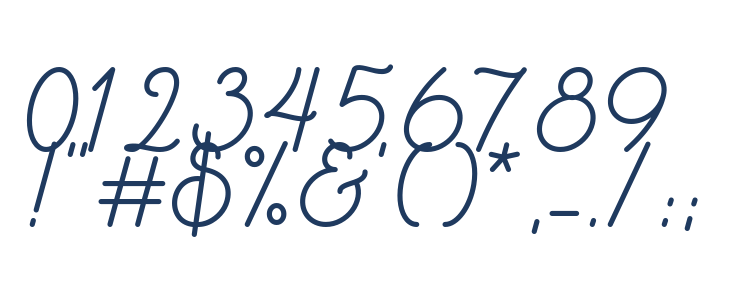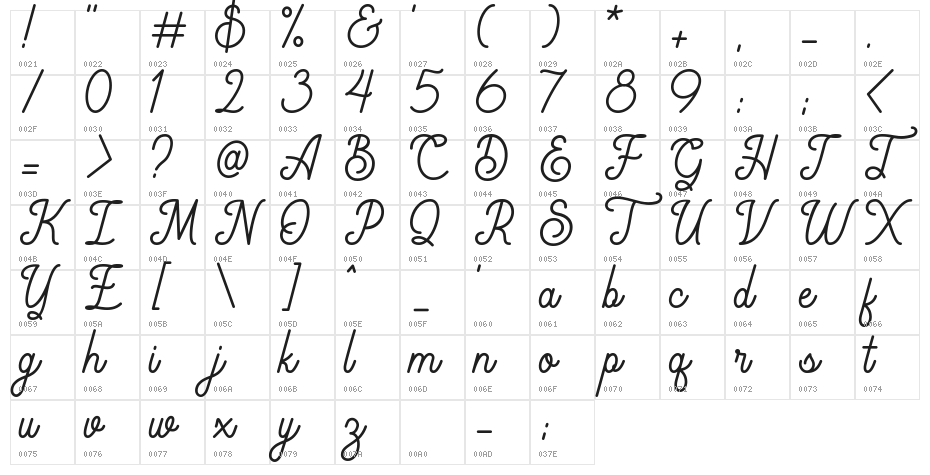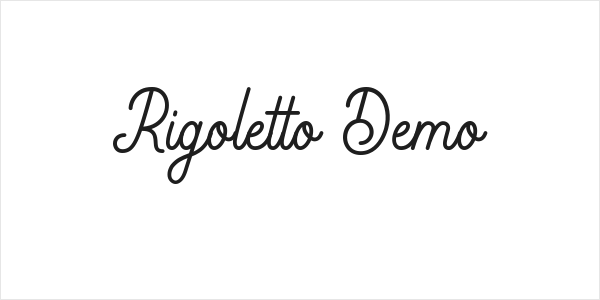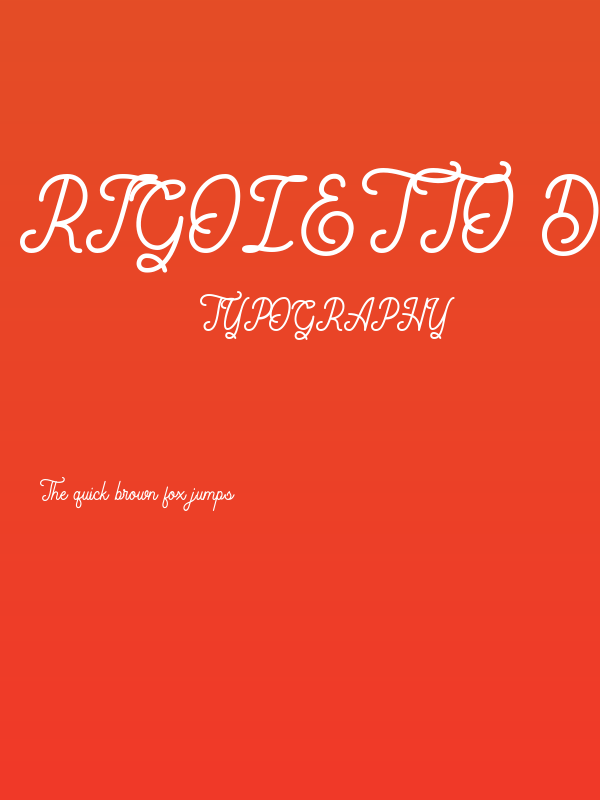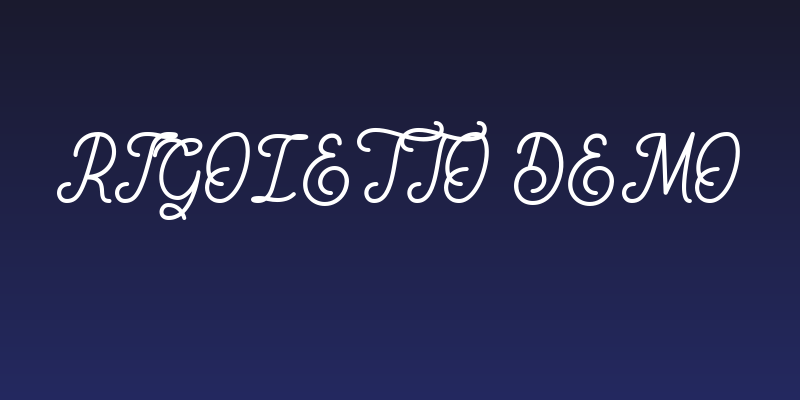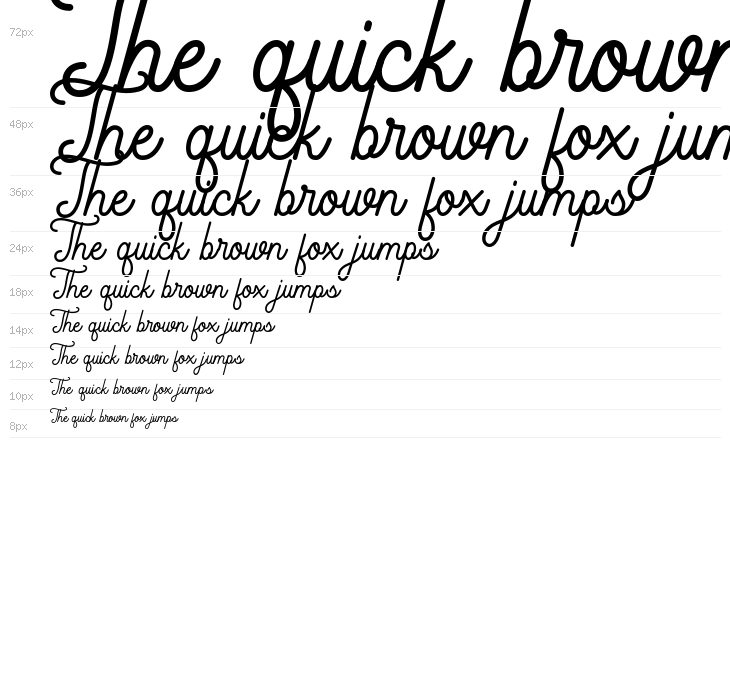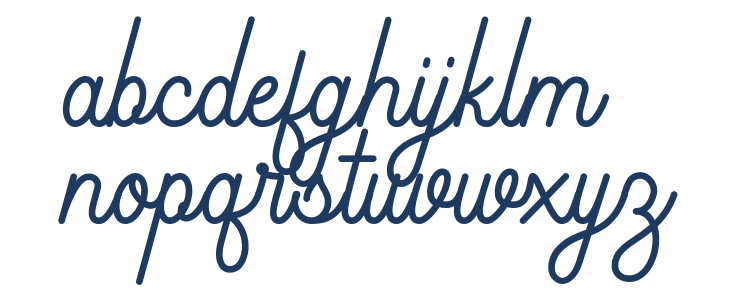
Rigoletto Demo Font
Rigoletto Demo Description
This elegant script font features a flowing, cursive style with smooth, connected strokes that create a sense of fluidity and grace. The uppercase letters are slightly more ornate, with subtle flourishes that add a touch of sophistication. The lowercase letters maintain a consistent rhythm, enhancing readability while preserving the font's decorative appeal. Numbers and special characters are designed with the same attention to detail, ensuring a cohesive look across all elements. This font's delicate curves and loops make it ideal for projects that require a touch of elegance and charm.
Rigoletto
Overall StyleElegant
Use CaseLogos, Invitations, Decorative text
Proposed ProjectsIdeal for wedding invitations, elegant branding, greeting cards, and decorative signage.